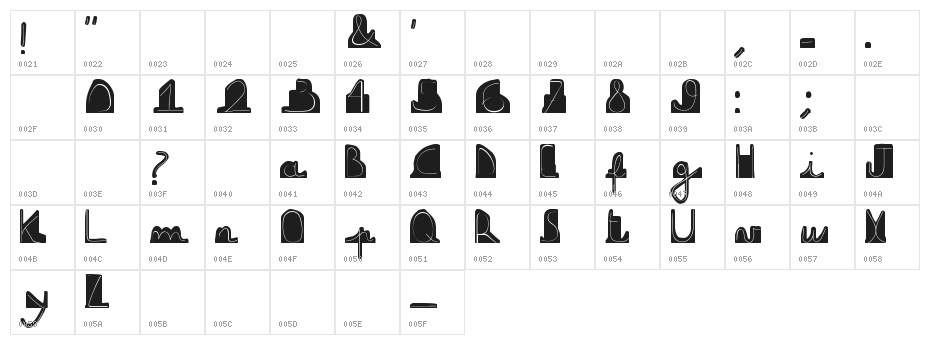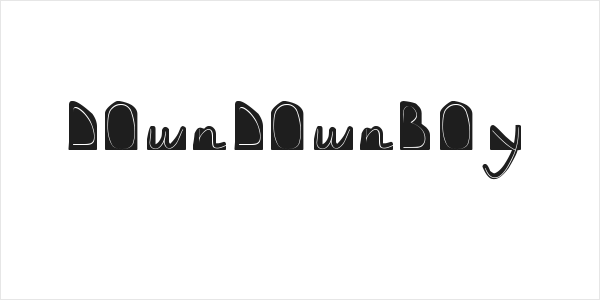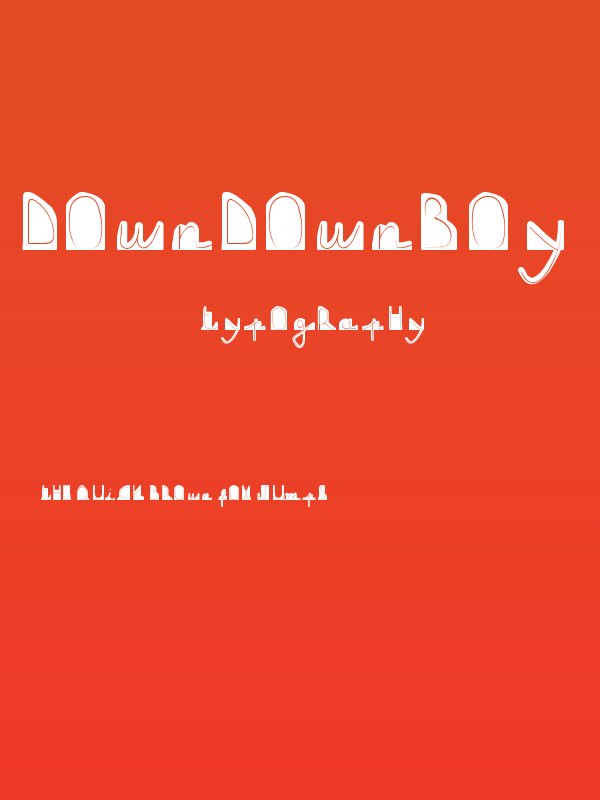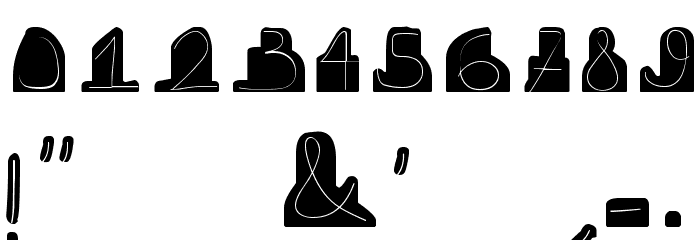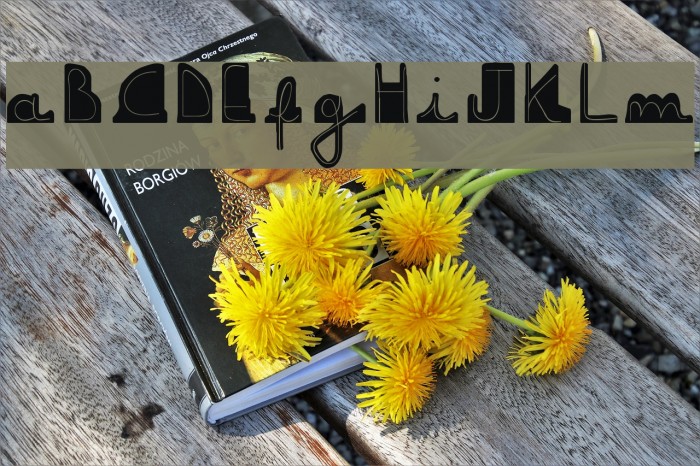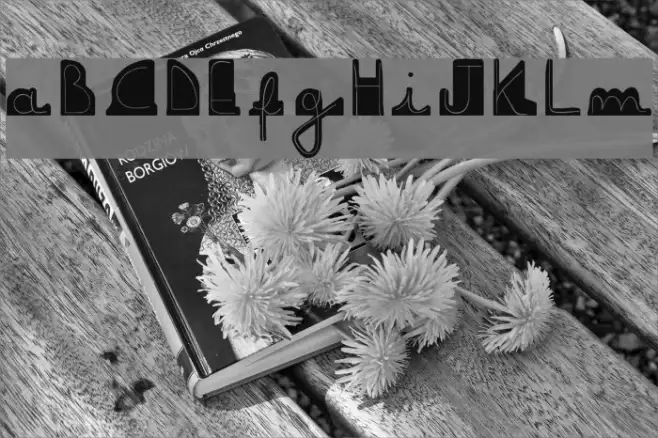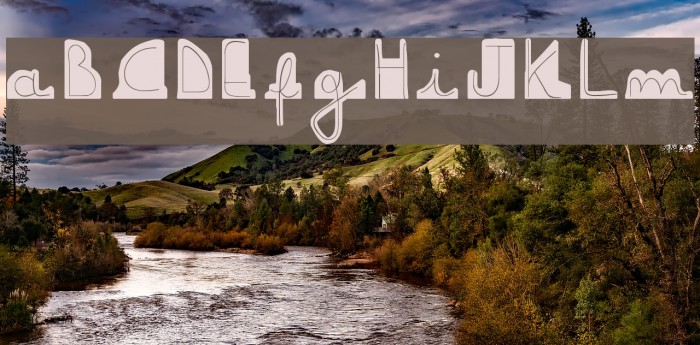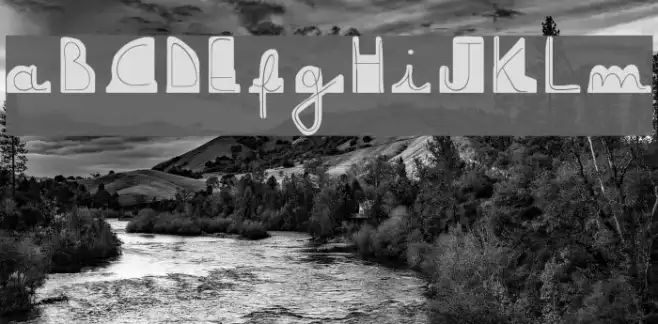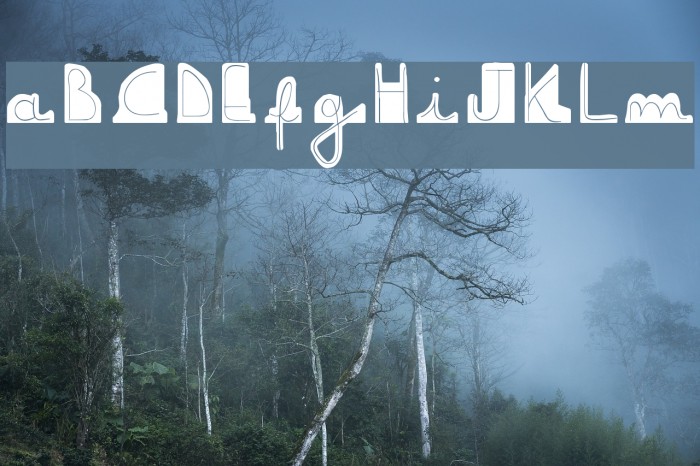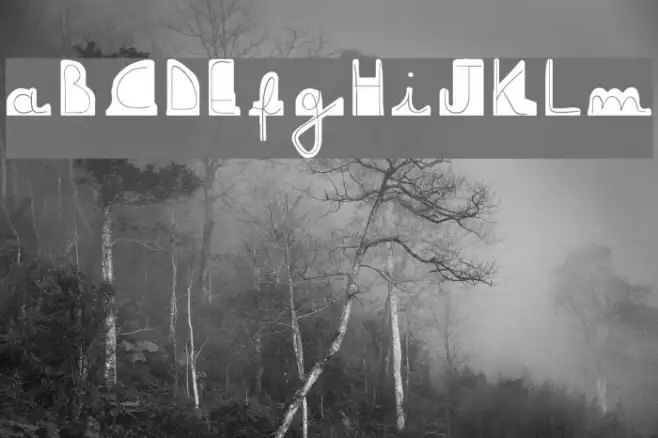
downdownboy Font
downdownboy Description
This font features a unique blend of bold, rounded shapes with a playful and modern aesthetic. The characters are enclosed within a solid black outline, creating a striking contrast that enhances readability. The uppercase letters are bold and prominent, while the lowercase letters maintain a consistent style with slight variations in height and width. Numbers are equally bold, matching the overall style of the alphabet. Special characters are creatively designed, maintaining the font's cohesive look. The font's design is both artistic and functional, making it suitable for various creative projects.